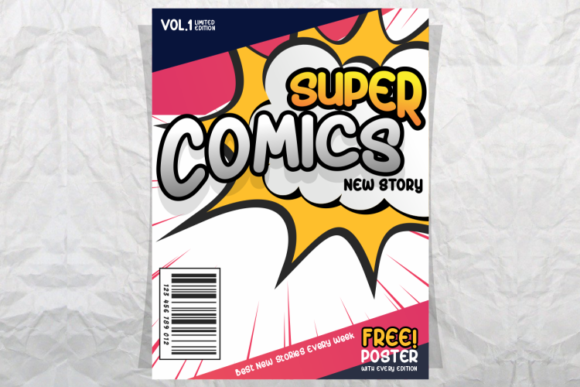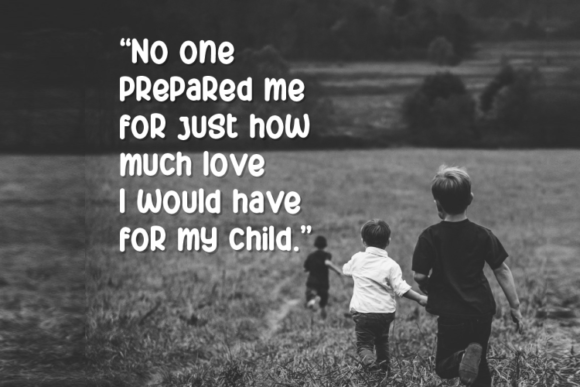
Big Boss Font
db-ku.com - Script & Handwritten -- Big Boss is a font that will make your design looks modern, unique, and fun. Perfect for playful kids font with cartoon style. This font is suitable for children, Kids, Boys, Kindergarten, Birthday, and Comic purposes. The Big Boss font has a unique glyph and fun style.